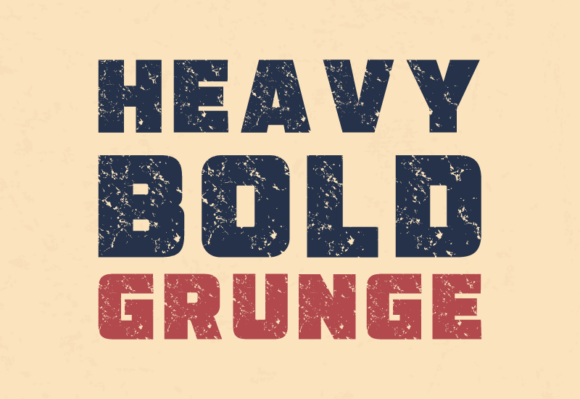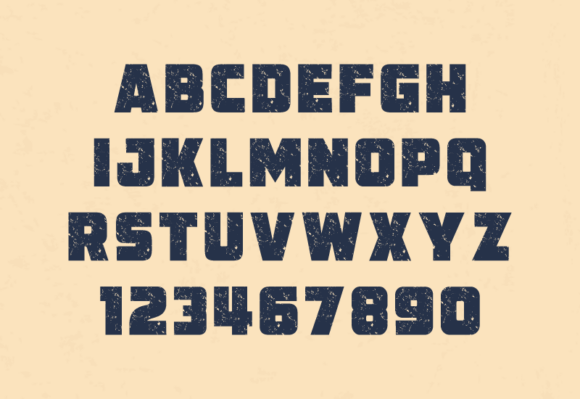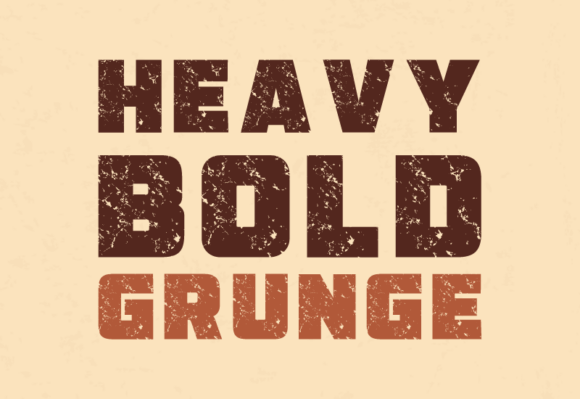
Unleash Your Creativity with Heavy Bold Grunge: The Ultimate Font for Rebels and Visionaries
In the world of typography, few fonts have made a statement as bold as Heavy Bold Grunge. This sans-serif typeface is not just a font; it’s an attitude, a rebellion, and a way to make your designs stand out from the crowd. With its innovative and audacious design, Heavy Bold Grunge is the perfect choice for designers and crafters who want to add a touch of grit and individuality to their projects.
The Power of Heavy Bold Grunge: A Font Like No Other
Heavy Bold Grunge is more than just a font; it’s an experience. Each stroke of this bold typeface is designed with a rustic, distressed finish that gives it a unique and unmistakable look. The font’s strong, courageous boldness and unparalleled grit make it the perfect choice for projects that require a statement. Whether you’re working on groundbreaking print media, rebellious music graphics, or brand-defining fashion labels, Heavy Bold Grunge is the perfect companion to help you make your mark.
Unruly Beauty: The Unique Characteristics of Heavy Bold Grunge
So, what sets Heavy Bold Grunge apart from other fonts? The answer lies in its unique characteristics. The font’s distressed finish gives it a worn, vintage look that’s perfect for adding a touch of nostalgia to your designs. The bold, sans-serif design makes it highly legible, even at large sizes. And the rugged, grungy texture adds a layer of depth and complexity to your designs that’s hard to achieve with other fonts.
Step Up Your Visual Storytelling with Heavy Bold Grunge
Visual storytelling is an art form that requires creativity, imagination, and the right tools. Heavy Bold Grunge is more than just a font; it’s a tool that can help you elevate your designs and tell your story in a way that’s both bold and unforgettable. With its unruly beauty and audacious charm, Heavy Bold Grunge is the perfect choice for designers and crafters who want to push the boundaries of visual storytelling.
Perfect for Rebels and Visionaries
Heavy Bold Grunge is not just a font; it’s a statement of intent. It’s perfect for designers and crafters who want to challenge the status quo and create something truly unique. Whether you’re working on a music album, a fashion label, or a print media project, Heavy Bold Grunge is the perfect choice for those who want to make a bold statement. The font’s rebellious spirit and daring individuality make it the perfect companion for those who want to stand out from the crowd.
Elevate Your Designs with Heavy Bold Grunge
So, how can you use Heavy Bold Grunge to elevate your designs? The answer is simple: by leveraging its unruly beauty and audacious charm. Use Heavy Bold Grunge to add a touch of grit and individuality to your projects. Experiment with different colors, textures, and layouts to create something truly unique. And don’t be afraid to push the boundaries of typography and design.
Real-World Applications of Heavy Bold Grunge
Heavy Bold Grunge is a versatile font that can be used in a variety of real-world applications. Here are a few examples:
- Music Graphics: Use Heavy Bold Grunge to create bold, eye-catching music graphics that reflect the rebellious spirit of your favorite artists.
- Fashion Labels: Add a touch of grit and individuality to your fashion labels with Heavy Bold Grunge.
- Print Media: Use Heavy Bold Grunge to create bold, attention-grabbing headlines and titles for your print media projects.
- Branding: Leverage the unruly beauty of Heavy Bold Grunge to create bold, memorable brand identities that stand out from the crowd.
In conclusion, Heavy Bold Grunge is more than just a font; it’s a statement, a rebellion, and a way to make your designs stand out from the crowd. With its innovative and audacious design, Heavy Bold Grunge is the perfect choice for designers and crafters who want to add a touch of grit and individuality to their projects. So, why settle for ordinary when you can make a bold statement with Heavy Bold Grunge?